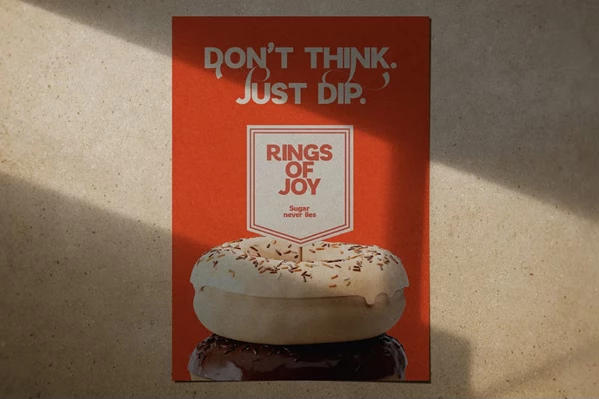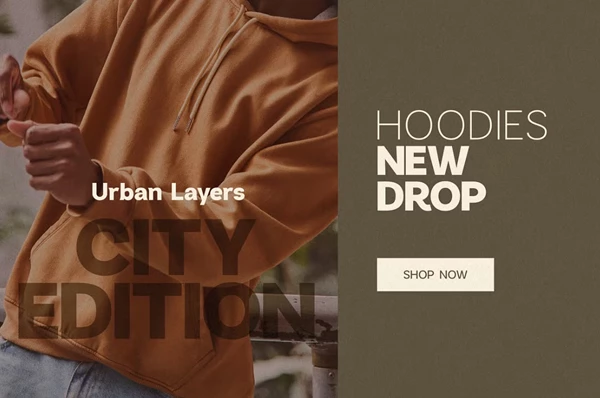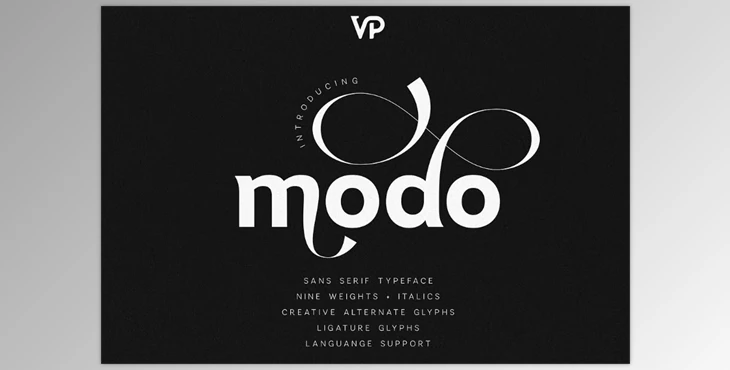
Modo Modern Sans Serif Typeface:
Modo Modern Sans Serif Typeface is a contemporary, flexible typeface that embodies clean minimalism with a dash of whimsy. It features nine weights, each with an italic option, and effectively goes from thin to light to regular to medium to bold to extra bold to black with ease. Alternate glyphs and fabulous ligatures provide fun personality opportunities across the board, making Modo suitable for any branding, packaging, magazine layout, or digital interface.
With support for over 85 languages, Modo can be used across the globe with extended Latin fonts and common stylistic pieces. From headlines to body copy to display options, Modo is a go-to for any typographer looking for flexibility in a modern package.
Some great features of Modo Modern Sans Serif Typeface:
- Contemporary Sans Serif Typeface
- 9 Weights (Plus Italics) from Thin to Black
- Alternate Glyphs and Ligatures abound
- Extensive Language support
- Ideal for Branding, Packaging, Magazines, Posters, Menus, and Digital Design
- The Modo Typeface is perfect for anyone looking for clarity and creative options with a worldwide approach in mind.
"Modo Modern Sans Serif Typeface" Samples: